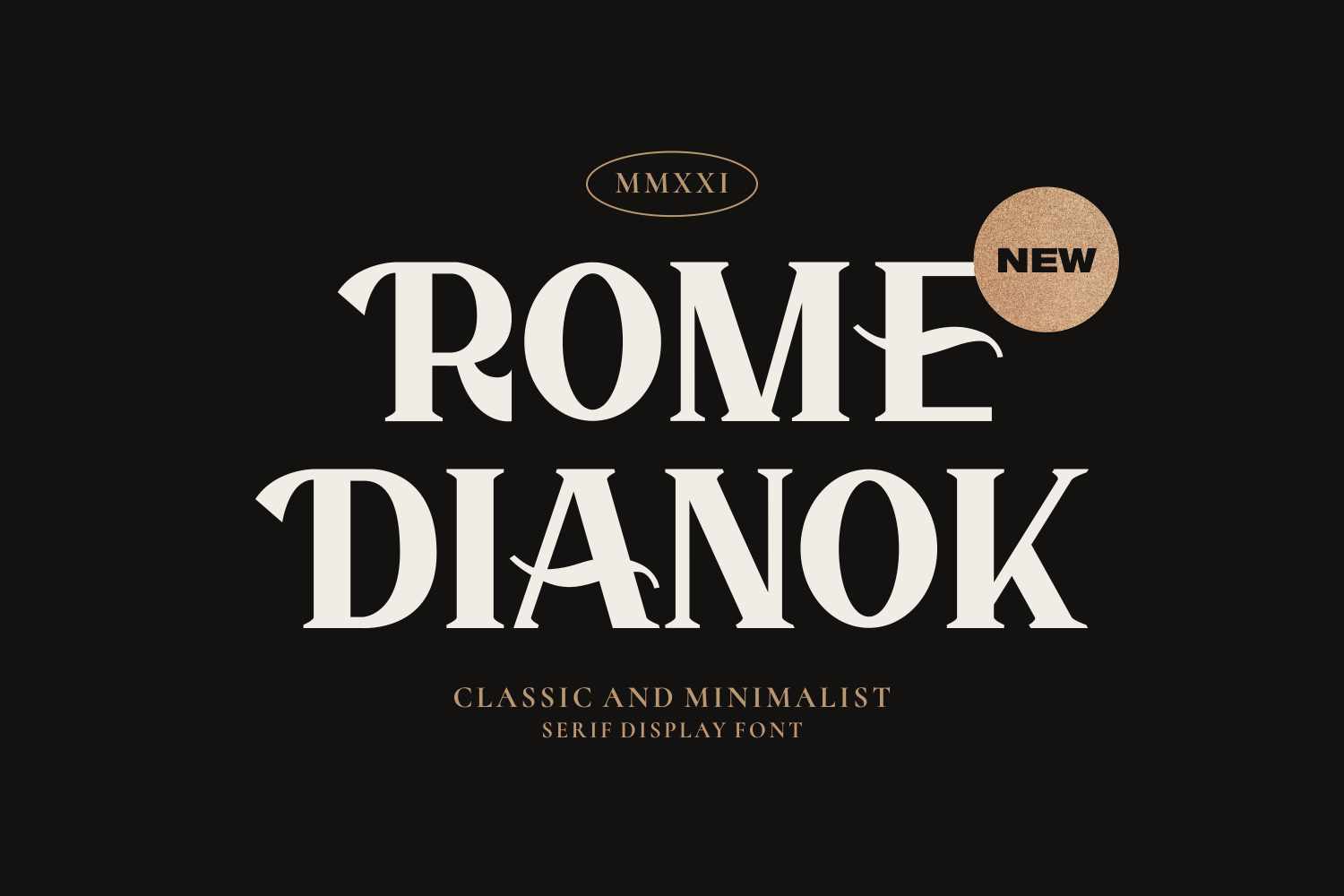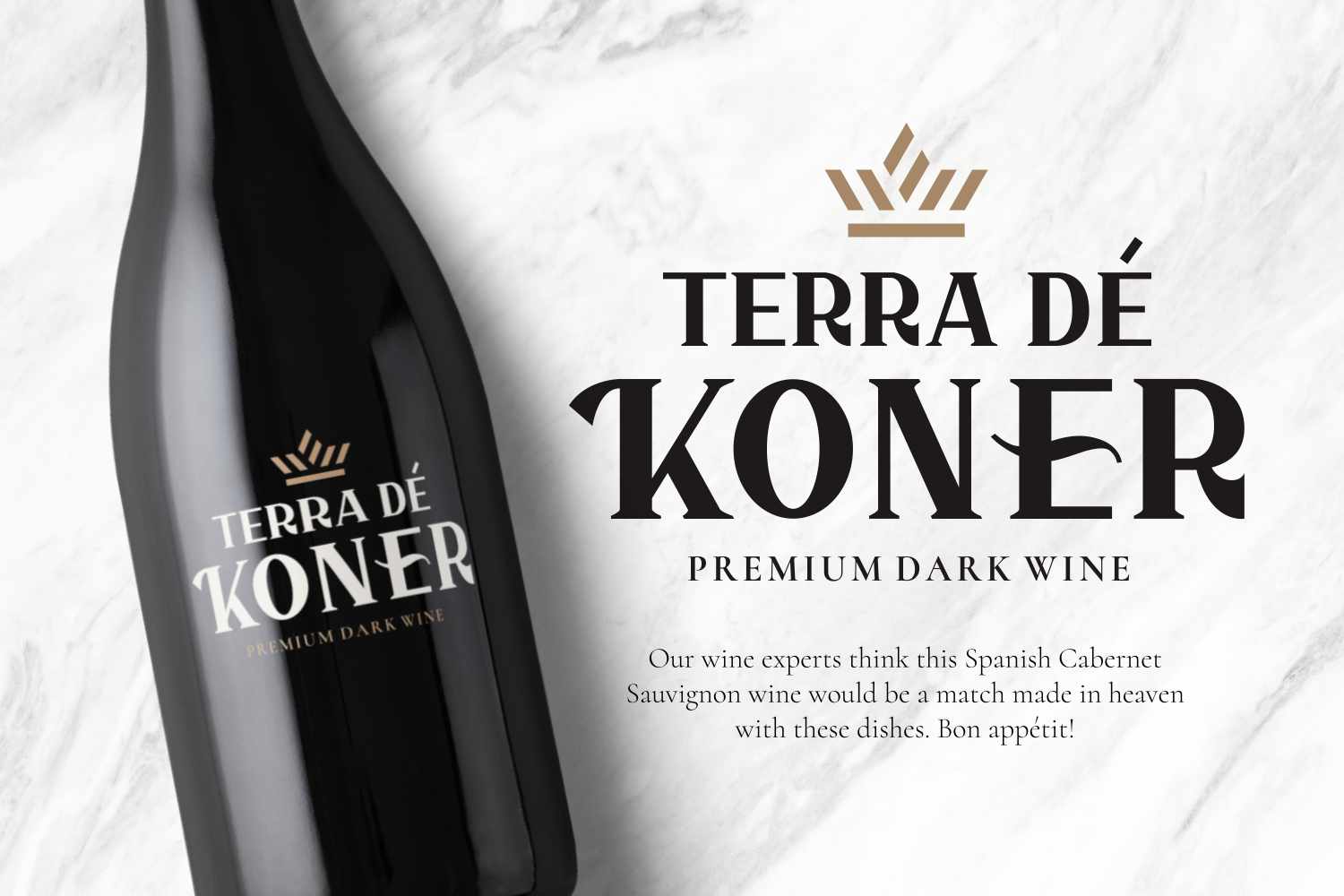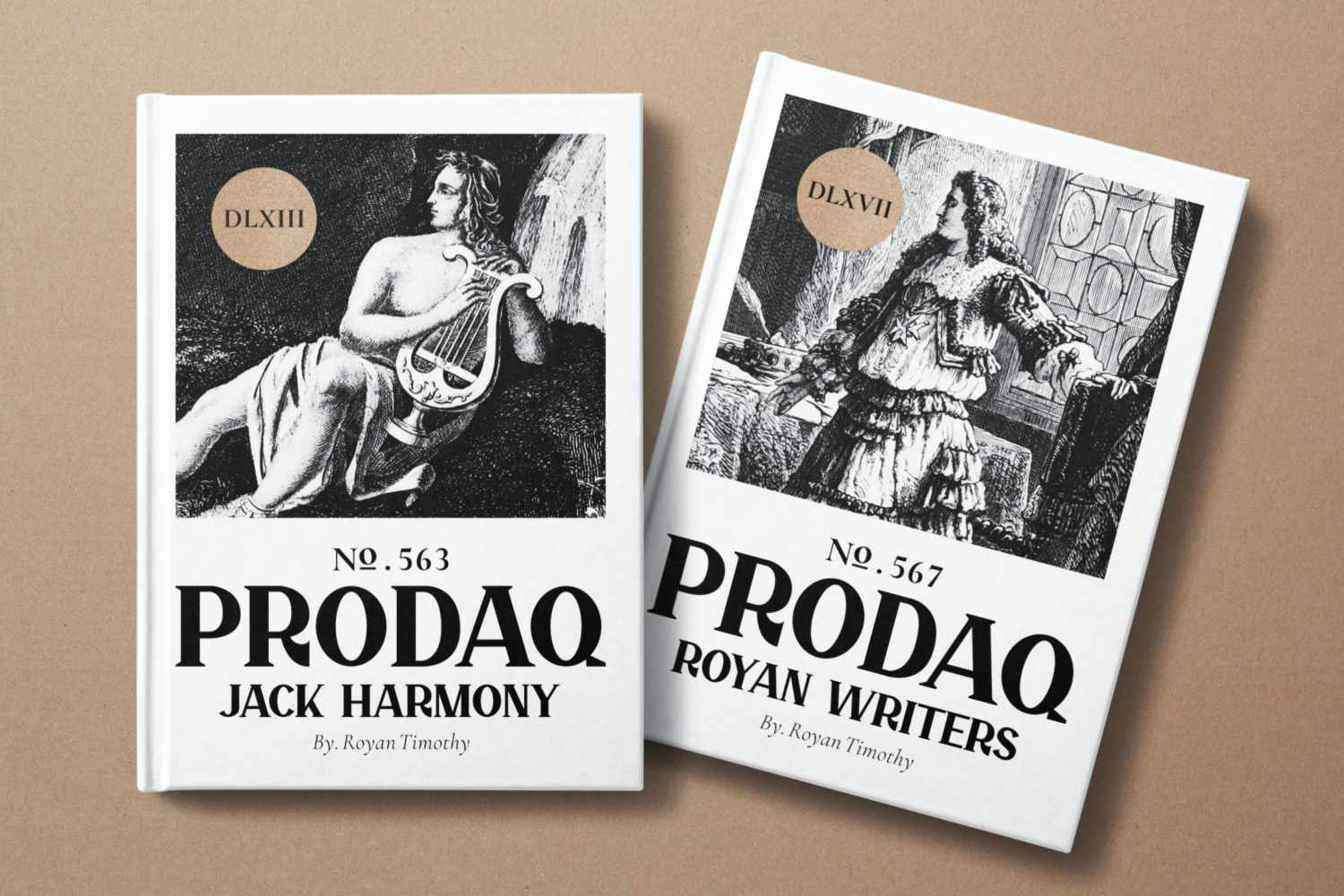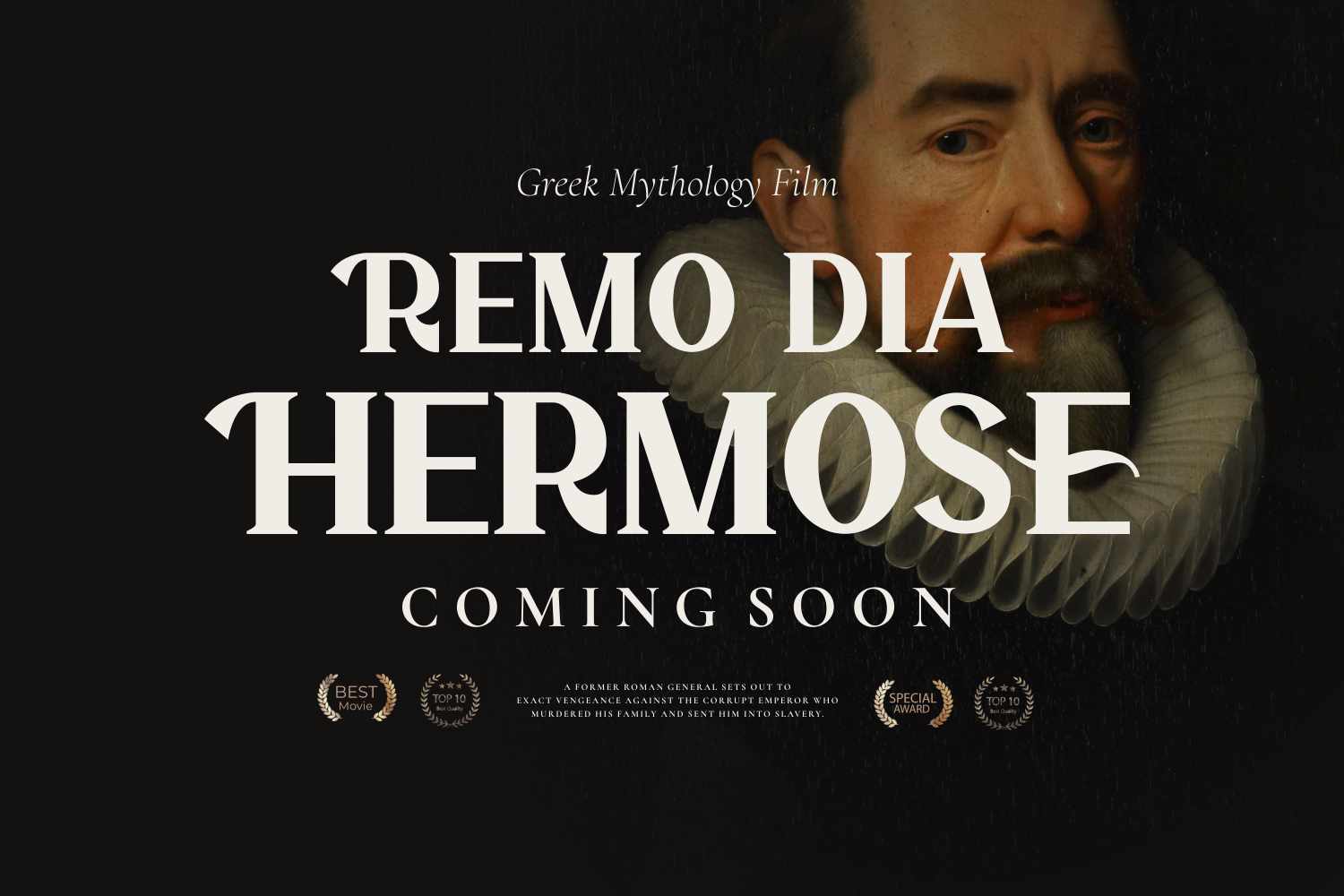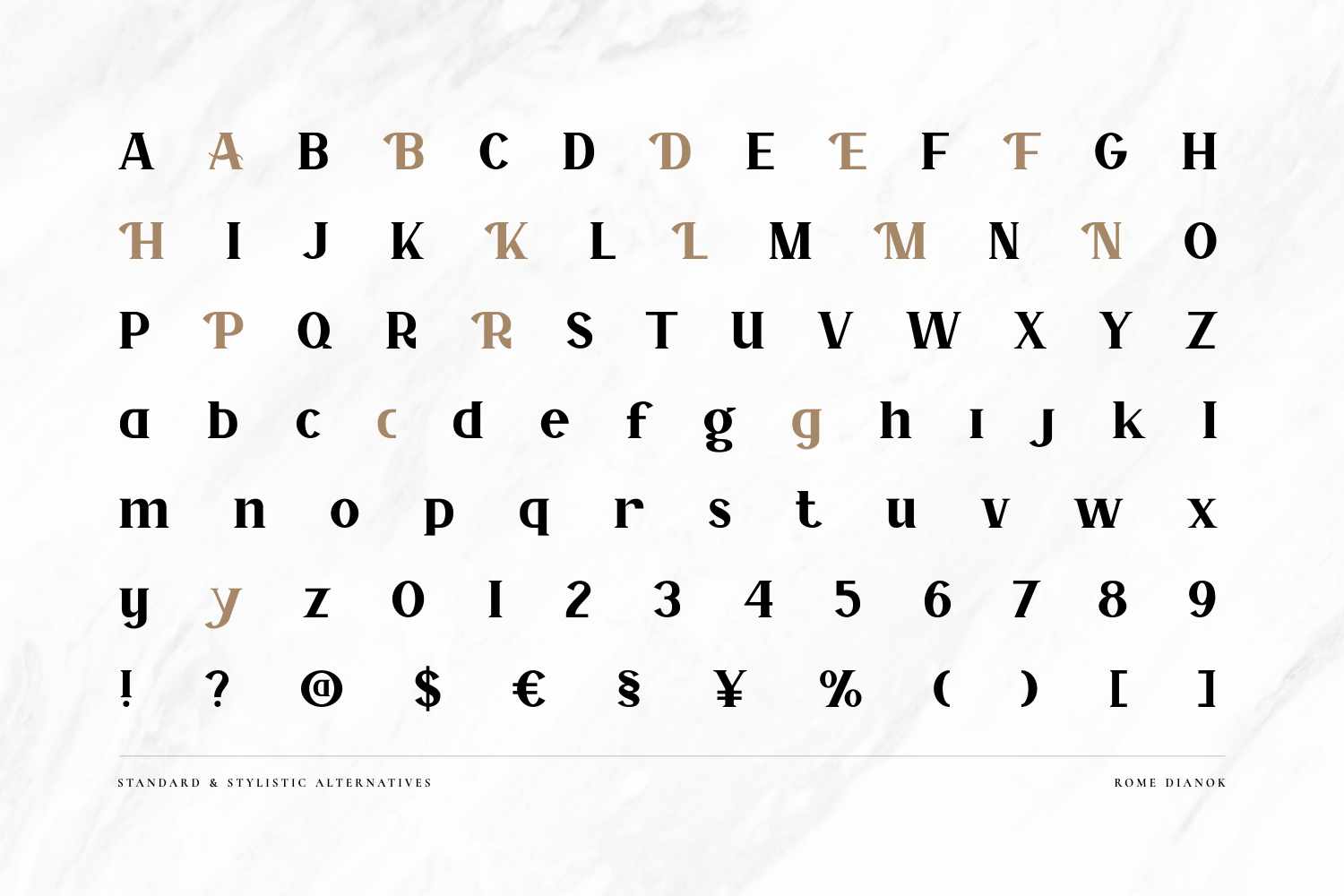
Rome Dianok is a sophisticated serif display font that blends classic elegance with modern minimalist aesthetics. With its striking character design and subtle stylistic alternates, this font delivers a timeless yet distinctive look that’s ideal for premium branding, editorial headlines, and luxury product packaging. The high contrast and carefully tapered serifs make it both bold and refined.
Whether you’re designing a wine label, a book cover, or cinematic title graphics, Rome Dianok provides the perfect harmony between tradition and creativity. It supports multilingual characters, alternative glyphs, and typographic accents that allow for flexibility in both contemporary and historical contexts. Elevate your visual presence with the grace and strength of Rome Dianok.
Rome Dianok